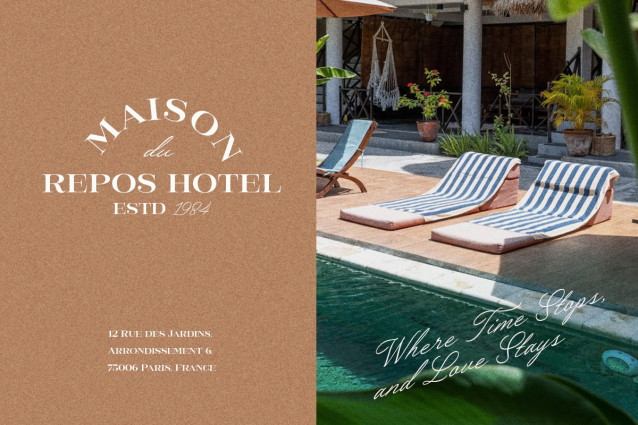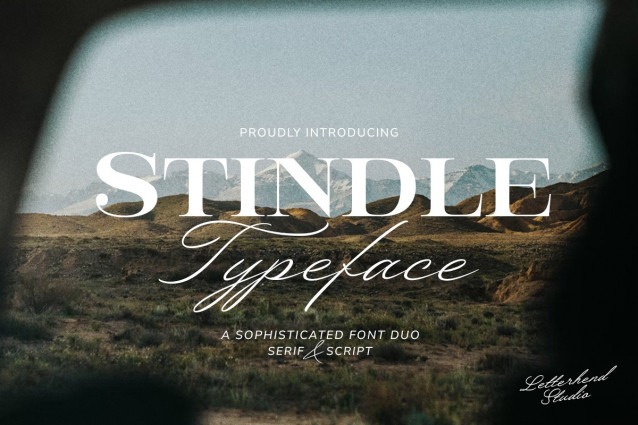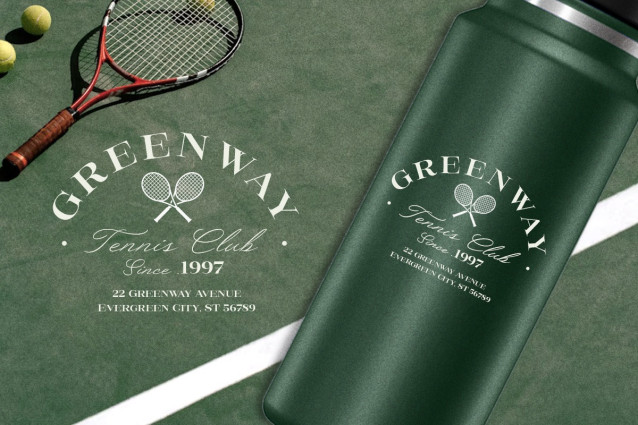
Stindle Font Duo is a refined font duo that beautifully combines classic serif strength with elegant script fluidity. Its serif style offers a sense of sophistication, stability, and luxury—perfect for editorial layouts, branding, and packaging—while the script counterpart adds a graceful, handwritten charm